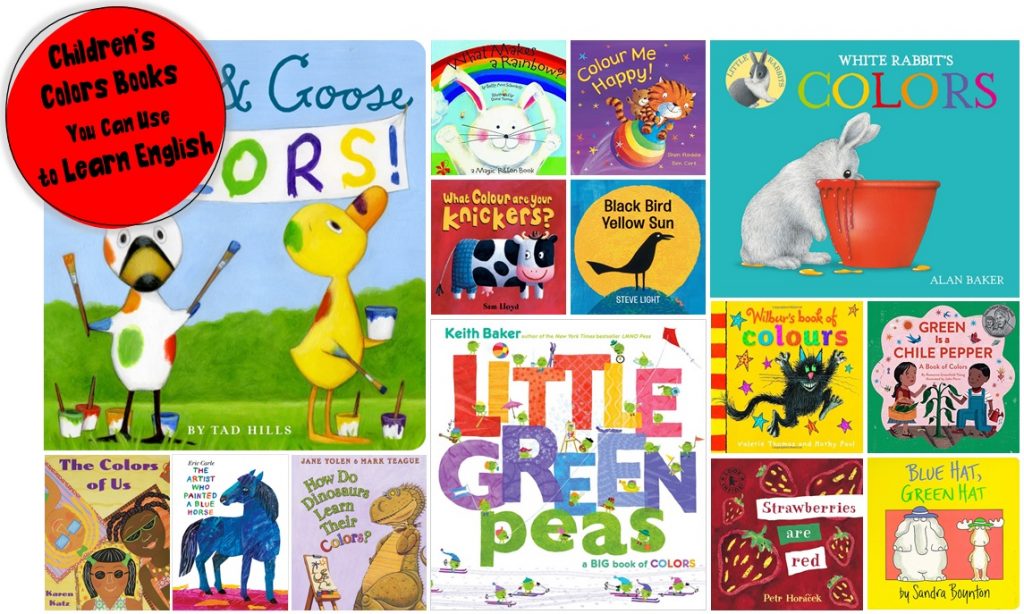
What Font Do Children's Books Use . When choosing the best fonts for children’s books, the typeface used can impact a child’s reading experience. Discover the best fonts for children's books to enhance readability and engage young readers. However, in the case of children’s books,. 31 fonts for children’s books. Ensure you’ve picked an intriguing font for it so your. As a general rule, a font size between 10 and 12 points is commonly used in adult, ya, and middle grade books. For children’s books, 14 to 18 point type is normal (and can go. Books are usually written using a font size of 10 to 12 points. Don’t be fixated on the illustration only when creating a children’s book; Both serif styles differ in calligraphic style and stroke contrast, but they were both used in children’s books for their similar legibility. In this article, we will explore 15.
Books are usually written using a font size of 10 to 12 points. However, in the case of children’s books,. When choosing the best fonts for children’s books, the typeface used can impact a child’s reading experience. Don’t be fixated on the illustration only when creating a children’s book; As a general rule, a font size between 10 and 12 points is commonly used in adult, ya, and middle grade books. For children’s books, 14 to 18 point type is normal (and can go. Ensure you’ve picked an intriguing font for it so your. 31 fonts for children’s books. In this article, we will explore 15. Both serif styles differ in calligraphic style and stroke contrast, but they were both used in children’s books for their similar legibility.
What Font Do Children's Books Use Ensure you’ve picked an intriguing font for it so your. 31 fonts for children’s books. Ensure you’ve picked an intriguing font for it so your. For children’s books, 14 to 18 point type is normal (and can go. Discover the best fonts for children's books to enhance readability and engage young readers. As a general rule, a font size between 10 and 12 points is commonly used in adult, ya, and middle grade books. However, in the case of children’s books,. Don’t be fixated on the illustration only when creating a children’s book; Both serif styles differ in calligraphic style and stroke contrast, but they were both used in children’s books for their similar legibility. When choosing the best fonts for children’s books, the typeface used can impact a child’s reading experience. In this article, we will explore 15. Books are usually written using a font size of 10 to 12 points.
15 Cute Fonts For Kids {Free & Easy to Read!} Kid fonts, Cute fonts What Font Do Children's Books Use Discover the best fonts for children's books to enhance readability and engage young readers. When choosing the best fonts for children’s books, the typeface used can impact a child’s reading experience. In this article, we will explore 15. As a general rule, a font size between 10 and 12 points is commonly used in adult, ya, and middle grade books.. What Font Do Children's Books Use.
Best Fonts For Childrens Books Letter Fountain They appeal to What Font Do Children's Books Use In this article, we will explore 15. Both serif styles differ in calligraphic style and stroke contrast, but they were both used in children’s books for their similar legibility. When choosing the best fonts for children’s books, the typeface used can impact a child’s reading experience. However, in the case of children’s books,. As a general rule, a font size. What Font Do Children's Books Use.
best font for older readers What Font Do Children's Books Use In this article, we will explore 15. Books are usually written using a font size of 10 to 12 points. As a general rule, a font size between 10 and 12 points is commonly used in adult, ya, and middle grade books. Ensure you’ve picked an intriguing font for it so your. For children’s books, 14 to 18 point type. What Font Do Children's Books Use.
Roman and Italic versions of book fonts The World's Greatest Book What Font Do Children's Books Use As a general rule, a font size between 10 and 12 points is commonly used in adult, ya, and middle grade books. When choosing the best fonts for children’s books, the typeface used can impact a child’s reading experience. However, in the case of children’s books,. Don’t be fixated on the illustration only when creating a children’s book; Both serif. What Font Do Children's Books Use.
Books for EYFS 100 picture books to read before you are 5 What Font Do Children's Books Use For children’s books, 14 to 18 point type is normal (and can go. Discover the best fonts for children's books to enhance readability and engage young readers. In this article, we will explore 15. 31 fonts for children’s books. Both serif styles differ in calligraphic style and stroke contrast, but they were both used in children’s books for their similar. What Font Do Children's Books Use.
Top 10 MustHave Children's Books FOLLOWITFINDIT ebaycollection What Font Do Children's Books Use Ensure you’ve picked an intriguing font for it so your. However, in the case of children’s books,. In this article, we will explore 15. Books are usually written using a font size of 10 to 12 points. Don’t be fixated on the illustration only when creating a children’s book; When choosing the best fonts for children’s books, the typeface used. What Font Do Children's Books Use.
7 Perfect Typesetting Fonts for Books and Magazines Fonts, Type What Font Do Children's Books Use In this article, we will explore 15. 31 fonts for children’s books. As a general rule, a font size between 10 and 12 points is commonly used in adult, ya, and middle grade books. Books are usually written using a font size of 10 to 12 points. Ensure you’ve picked an intriguing font for it so your. Discover the best. What Font Do Children's Books Use.
20+ Best Fonts For Children's Books Choose The Best One What Font Do Children's Books Use 31 fonts for children’s books. When choosing the best fonts for children’s books, the typeface used can impact a child’s reading experience. However, in the case of children’s books,. Books are usually written using a font size of 10 to 12 points. For children’s books, 14 to 18 point type is normal (and can go. Ensure you’ve picked an intriguing. What Font Do Children's Books Use.